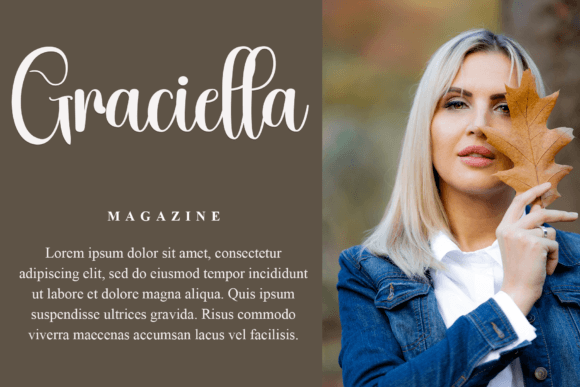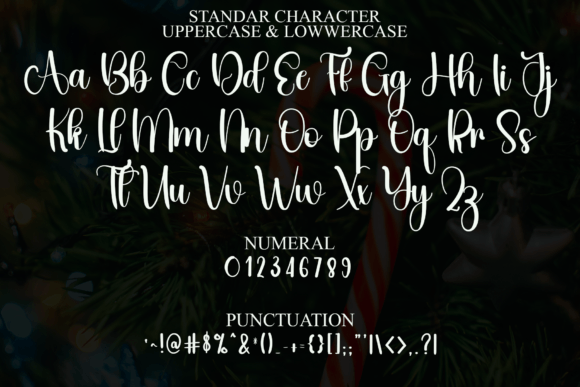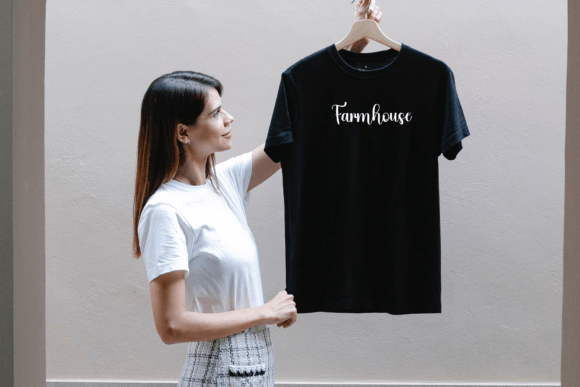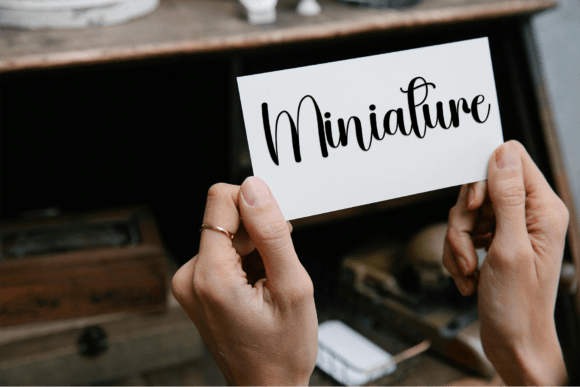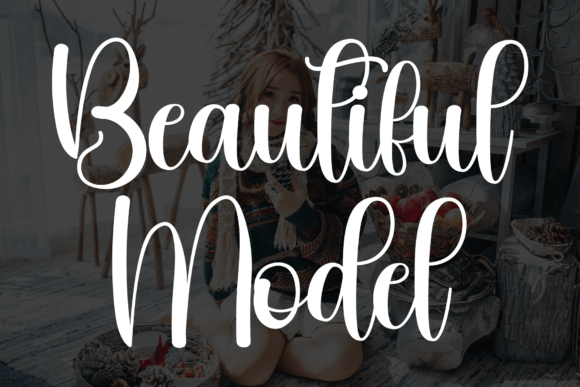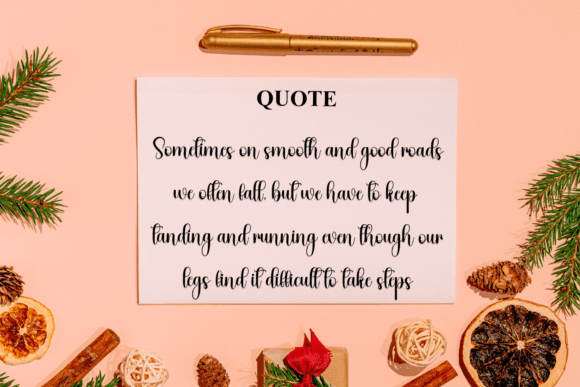
Introducing Beauty Christmas Font: Elevate Your Designs with Elegance
As the festive season approaches, designers and crafters are on the lookout for the perfect typography to add a touch of magic to their creations. If you’re searching for a font that embodies the essence of Christmas with elegance and sophistication, look no further than the Beauty Christmas Font. This exquisite, handwritten font is designed to bring a delicate and flowing aesthetic to your designs, making it an ideal choice for a wide range of projects.
The Beauty of Beauty Christmas Font
Beauty Christmas Font is a delicate, elegant, and flowing handwritten font that boasts beautiful and well-balanced characters. Its unique design makes it versatile and suitable for various design applications, from holiday-themed projects to everyday creative endeavors. The font’s intricate details and smooth lines evoke a sense of luxury and refinement, allowing your designs to stand out with a touch of sophistication.
One of the standout features of Beauty Christmas Font is its incredible versatility. Whether you’re working on:
- Christmas-themed packaging and branding
- Website headers and titles
- Digital and print advertisements
This font seamlessly adapts to your creative vision, adding a dash of elegance and whimsy to your designs. Its flowing script and beautiful ligatures make it perfect for creating eye-catching headlines, titles, and quotes that capture the essence of the festive season.
Why Choose Beauty Christmas Font?
- Elegance and sophistication: This font exudes refinement and luxury, perfect for designs that require a touch of high-end style.
- Versatility: Beauty Christmas Font adapts seamlessly to various design applications, making it a valuable addition to your font library.
- Unique and captivating: The font’s intricate details and flowing script make it perfect for creating eye-catching designs that stand out from the crowd.
Tips for Using Beauty Christmas Font
- Use it for headlines and titles: The font’s elegant and flowing script makes it perfect for creating eye-catching headlines and titles that capture attention.